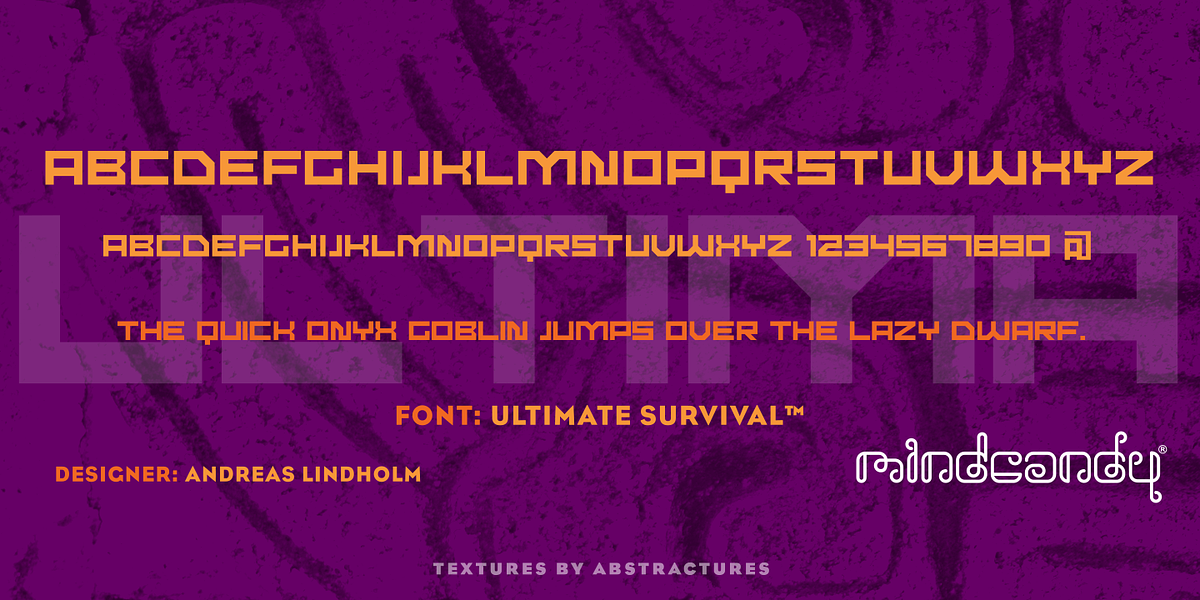
Ultimate Survival™
This is a retro-inspired display font with a geometric sans-serif design. It features bold, square shapes and a techno aesthetic. Suitable for headlines and posters.